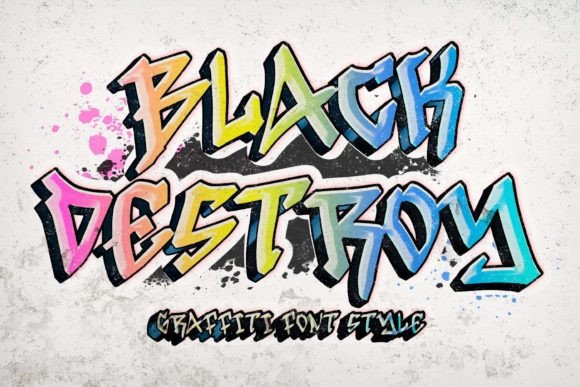
Looking to add a touch of uniqueness and elegance to your designs? Look no further than the Black Destroy Font! Created by the talented yogaletter6, this font is the perfect choice for those seeking the best font for pumpkin carving.
With its blackletter style, Black Destroy stands out from the crowd, making a bold statement that commands attention. Whether you're creating posters, banners, stickers, or branding materials, this font will elevate your designs to new heights.
The versatility of Black Destroy knows no bounds. Its uppercase, lowercase, numerals, and punctuation characters provide endless possibilities for creative expression. Plus, with multilingual support, you can easily reach a global audience with your designs.
Imagine the impact of this font on your wall art or street art projects. It brings a sense of urban coolness and edginess that will captivate viewers. Let your creativity run wild as you incorporate Black Destroy into your next tattoo design, making a powerful statement that speaks volumes.
But Black Destroy isn't just about making a visual impact. It evokes emotions and tells a story. Its unique graffiti-inspired style brings a sense of rebellion, energy, and excitement to your designs. It's the perfect choice for those who dare to be different and want to leave a lasting impression.